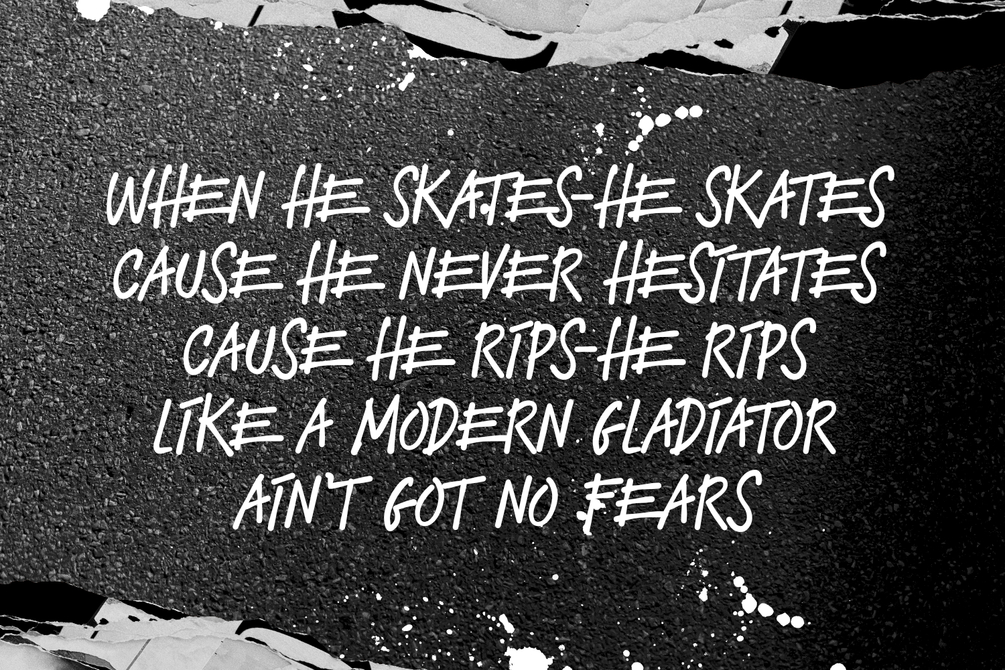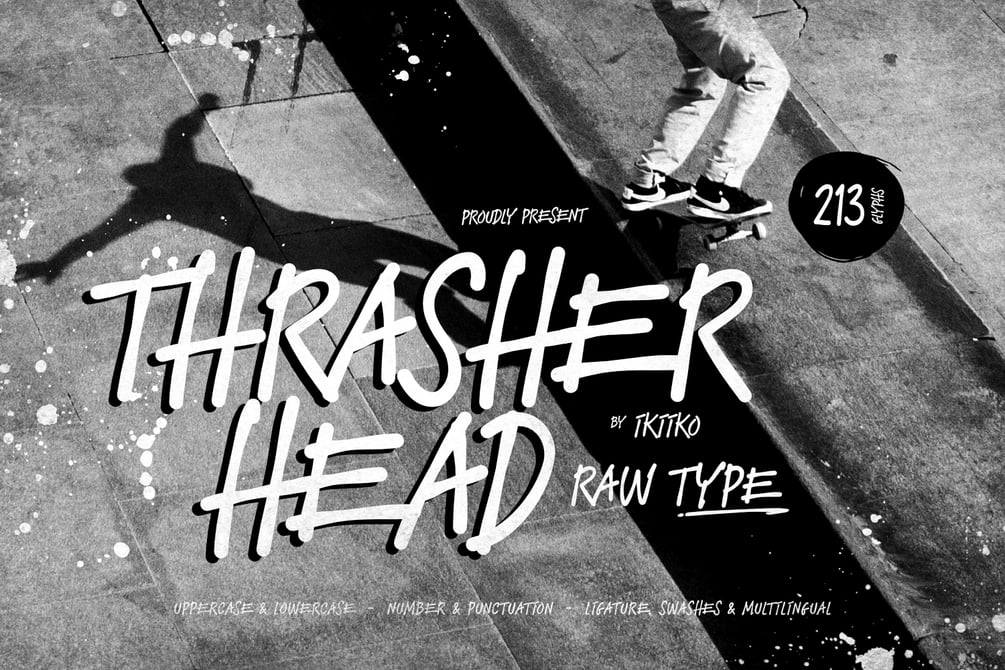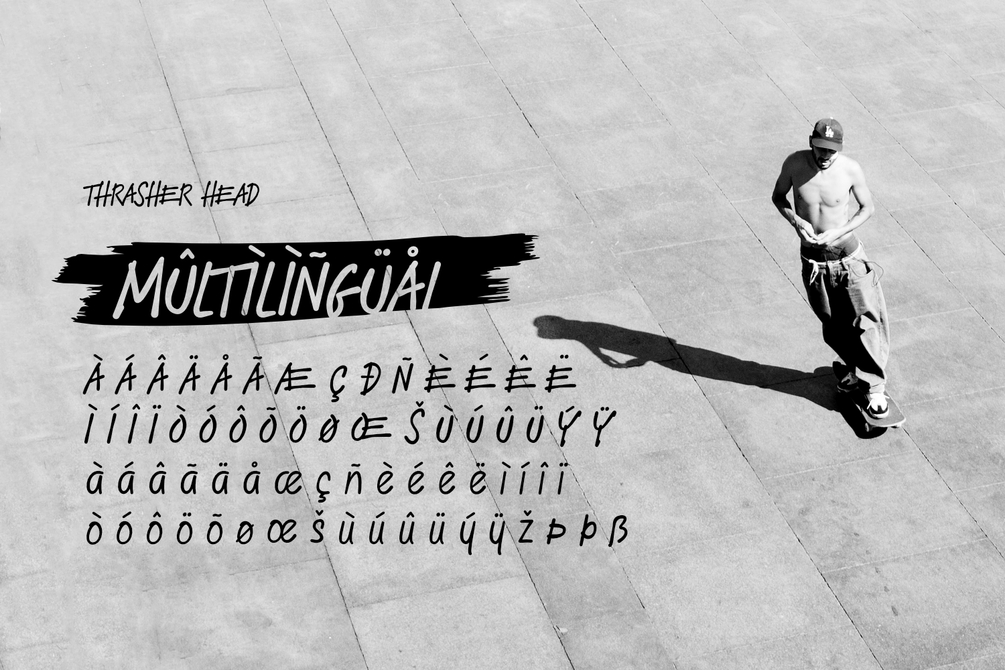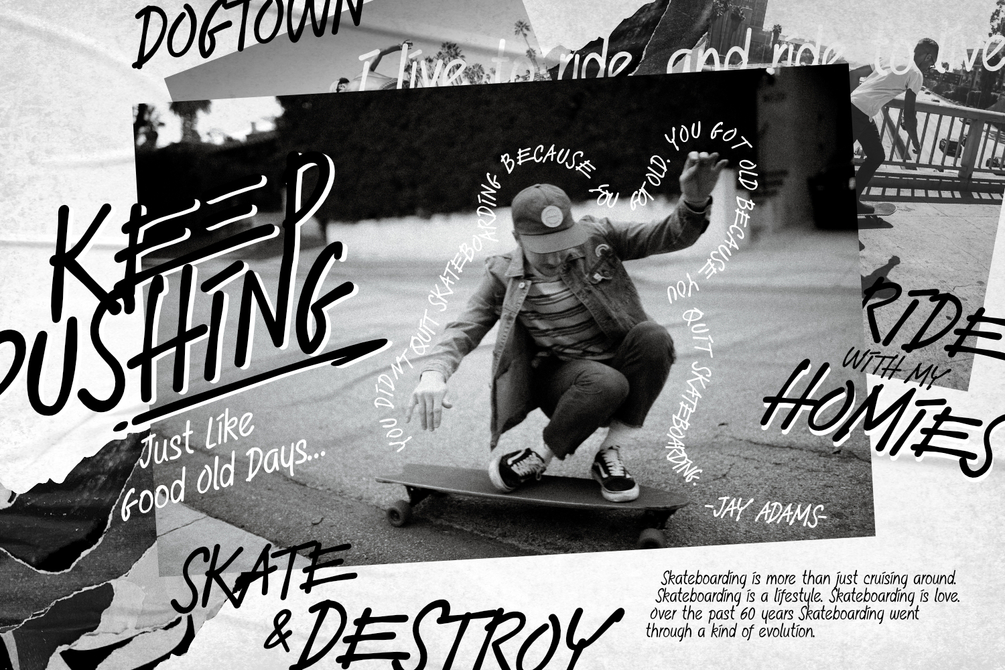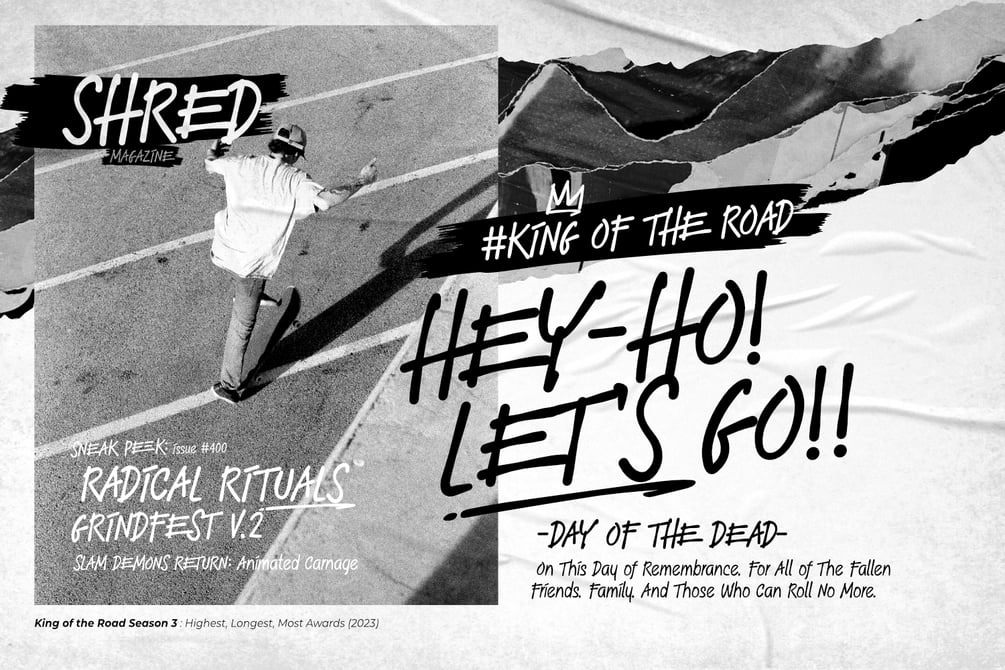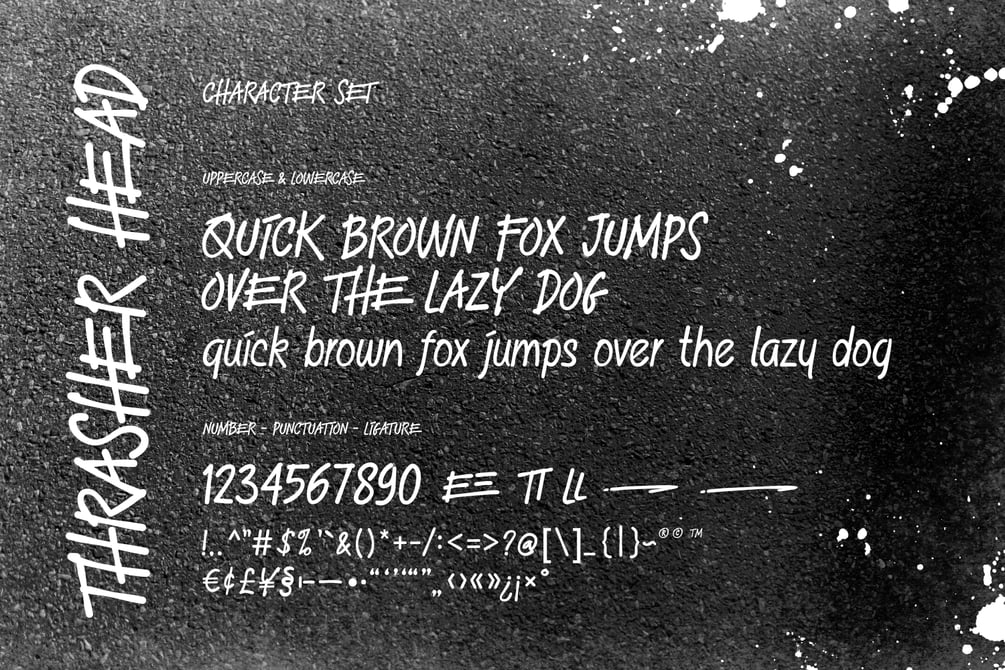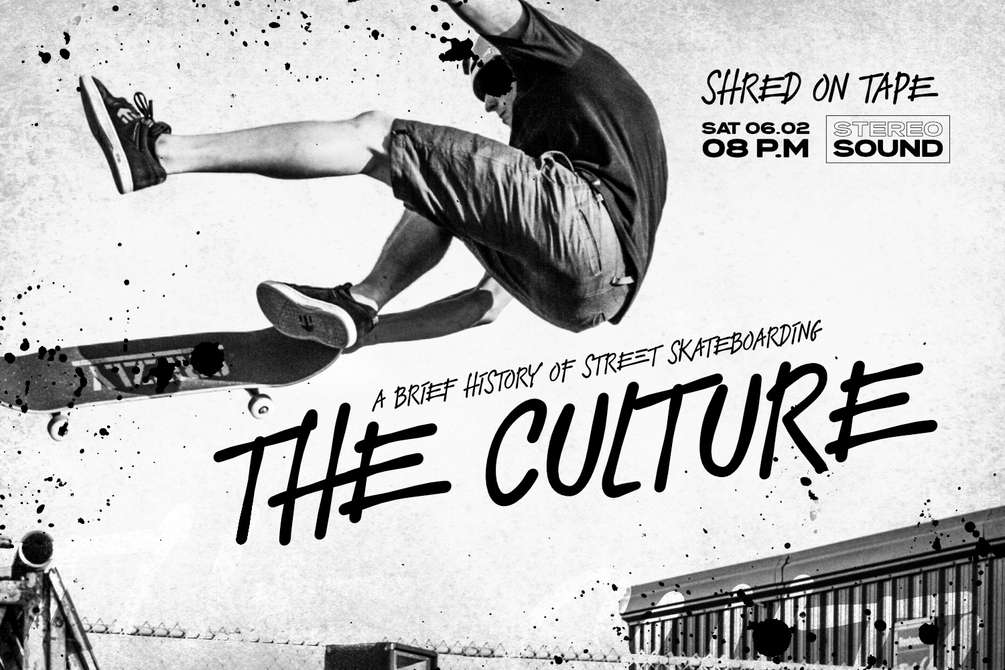
Thrasher Head - Handdrawn Font
Proudly Present Thrasher Head - Handdrawn Font, created by ikiiko
Thrasher Head is distinctive handwriting and encapsulates the essence of street style. It gives every design project an urban vibe with its rugged and raw characteristics. This font is the perfect choice for people looking for a strong and influential typeface inspired by the rebellious spirit of street culture and graffiti.
This font is designed to be versatile, making it suitable for a wide range of creative projects. Whether you're working on a skateboard deck design, a streetwear stuff, or a poster for an underground event, this font will infuse your work with urban attitude and a raw, handcrafted feel. The uppercase characters in Thrasher Head are bold and impactful, while the lowercase letters exhibit a slightly more refined style, providing a balanced mix of legibility and street-inspired aesthetics.
This typeface is perfect for an poster event, movie title, streetwear stuff, magazine layout, fashion brand, quotes, or simply as a stylish text overlay to any background image.
- Uppercase & Lowercase
- Numbers & Punctuation
- Bonus : Swashes & Ligature
- Multilingual Support